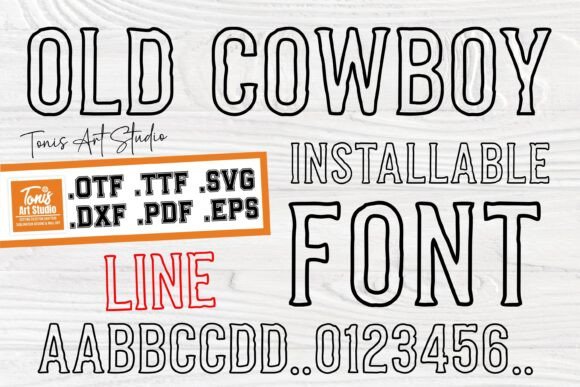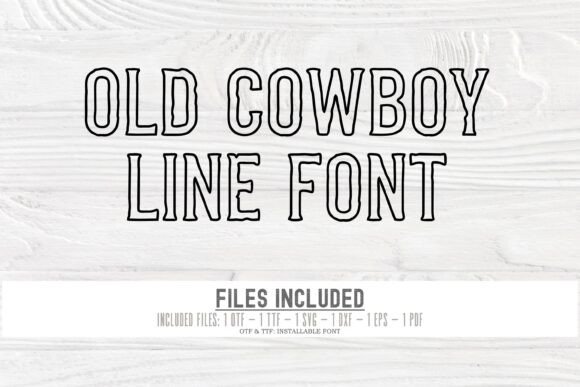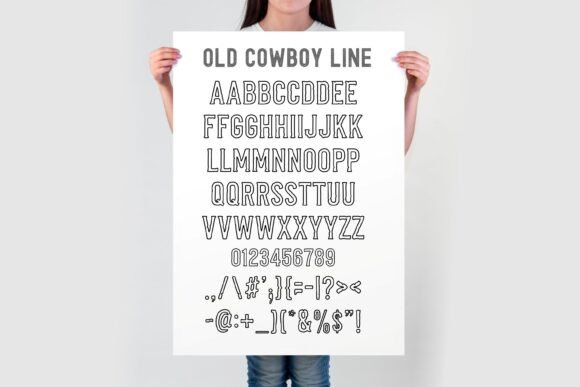
Old Cowboy Line Font
About the Old Cowboy Line Font
Elevate your designs with Old Cowboy Line Font, a font that combines sophistication with readability. Immerse your design into the rustic spirit of the Wild West with the “Old Cowboy Line” font. Boasting a sleek, outlined style, this one-of-a-kind typeface combines bold simplicity with rugged western allure. Ideal for lending that timeless vintage appeal to posters, logos, clothing, and more, the “Old Cowboy Line” font offers flexibility with both OTF and TTF formats. Featuring additional cut files in SVG, DXF, PDF, and EPS, it easily syncs with well-known cutting machines such as Cricut and Silhouette. Broaden your design horizons by leveraging the signature outline aesthetic of the “Old Cowboy Line” font. Let your creativity run wild.
Old Cowboy Line Font Usage Examples
Old Cowboy Line Font Example